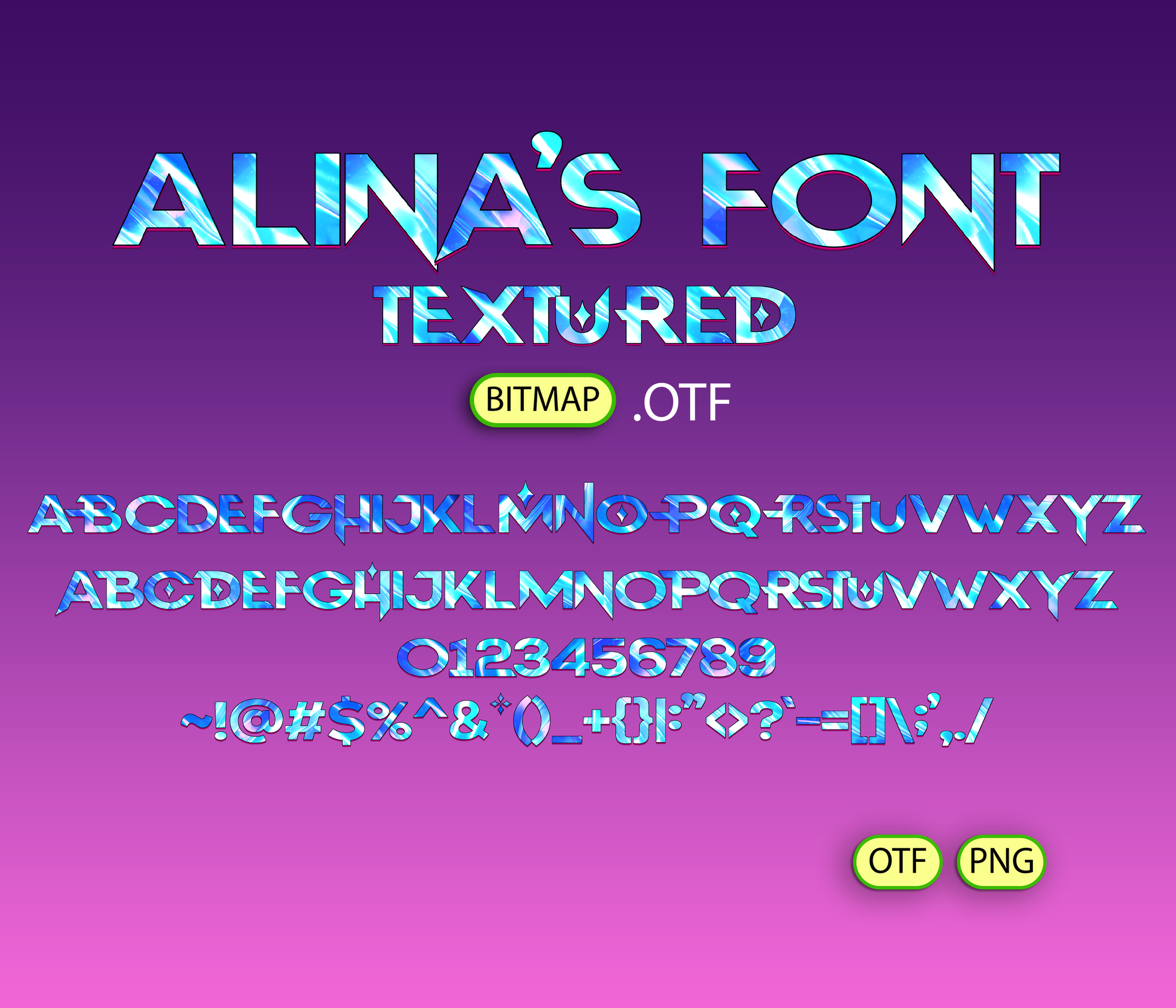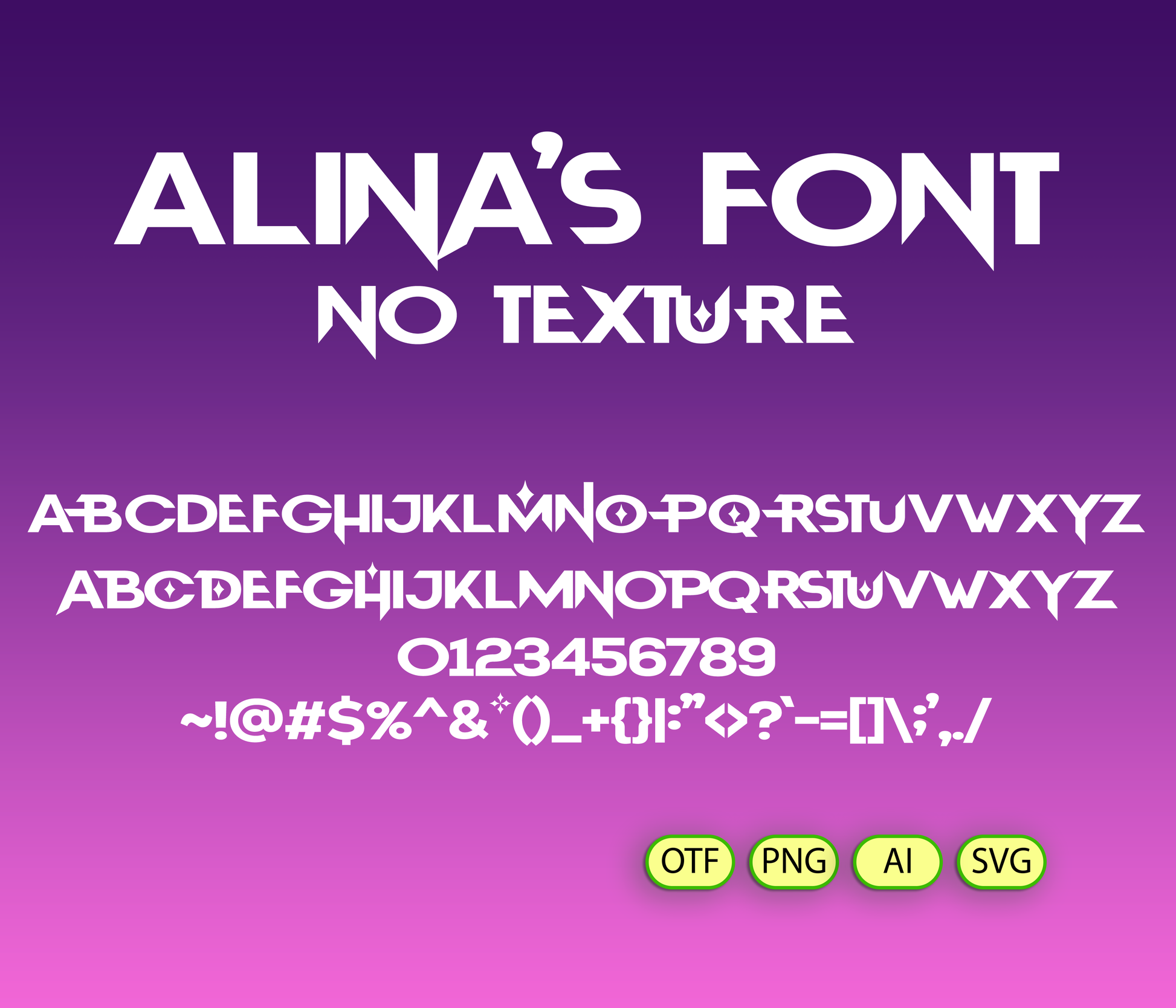
K-Wave Monster Slayers Font Textured
Step into the electrifying world of supernatural hunters with our K-Wave Monster Slayers font, capturing the essence of stylish demon fighters and paranormal warriors. Perfect for K-pop fans, supernatural creators, event organizers, and designers, this font brings the dynamic, edgy spirit of fashionable monster hunters to your projects. Create captivating materials, merchandise, or digital content with the thrilling energy of supernatural combat.
Our K-Wave Monster Slayers font features sleek, modern lines and bold characters reflecting the world of stylish supernatural warriors. Ideal for:
- Event Promotions: Create electrifying invites, posters, and banners for K-pop events, supernatural screenings, and themed parties that capture the spirit of fashionable demon fighters
- Merchandise Design: Perfect for t-shirts, posters, and accessories that showcase the edgy aesthetic of supernatural hunters and paranormal warriors
- Digital Media: Enhance websites, blogs, and social media with dynamic headers and graphics that express the power of monster slayers
- Fantasy Content: Add authentic flair to fan art, supernatural projects, and creative designs inspired by demon hunting tales
- Personal Projects: Bring thrilling excitement to scrapbooking, DIY crafts, and home decor inspired by the world of stylish paranormal fighters
Our font pays tribute to the iconic world of supernatural hunters, empowering your designs with its stylish and powerful spirit. Whether crafting promotional materials, designing merchandise, or adding an electrifying touch to personal projects, this font communicates the bold essence of demon fighters. Ready to inject supernatural power into your creations? This font is your key to exciting, impactful design.